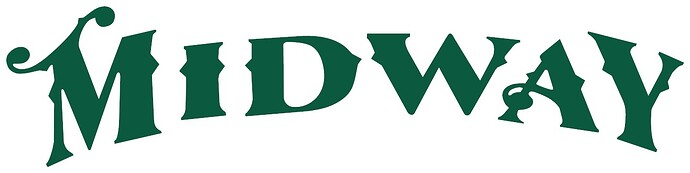
Please help me to find this fonts
That looks more like a monogram than a single letter. Do you have any additional samples?
This is what it look like.
Anyone know what font this is yet?